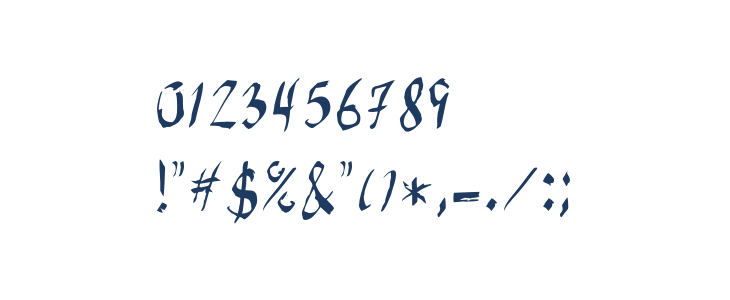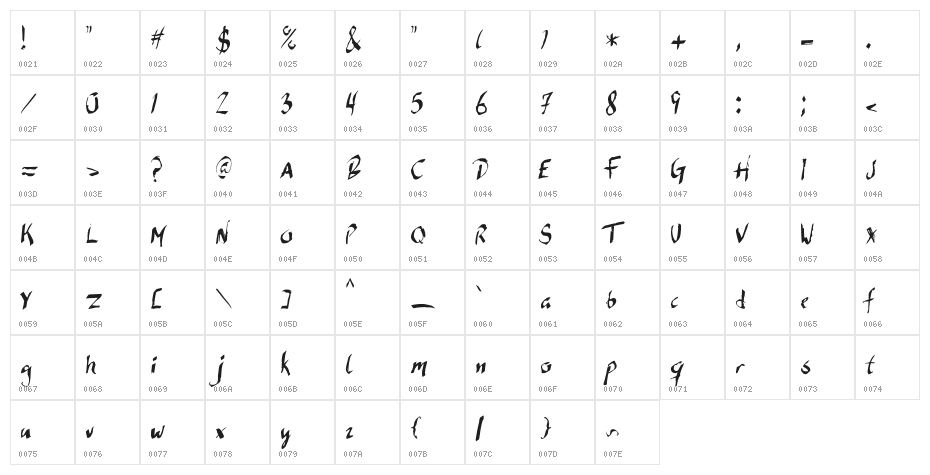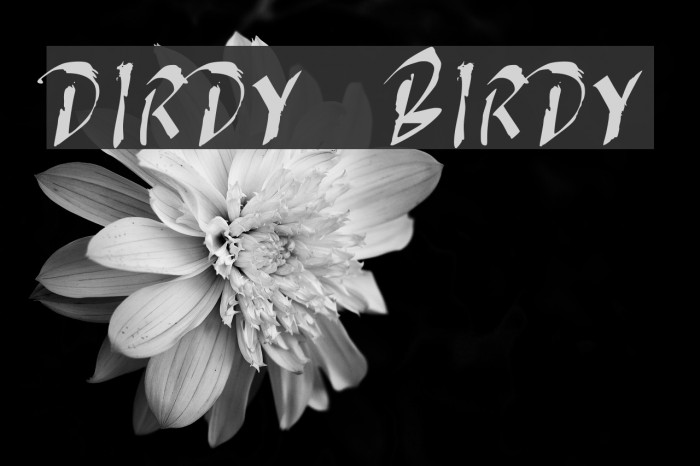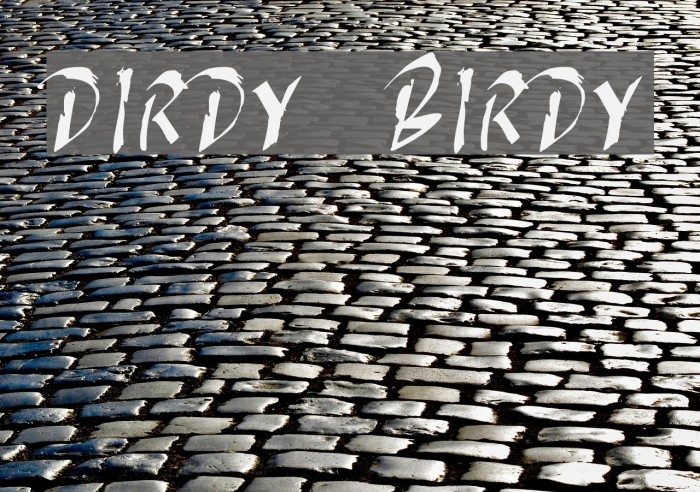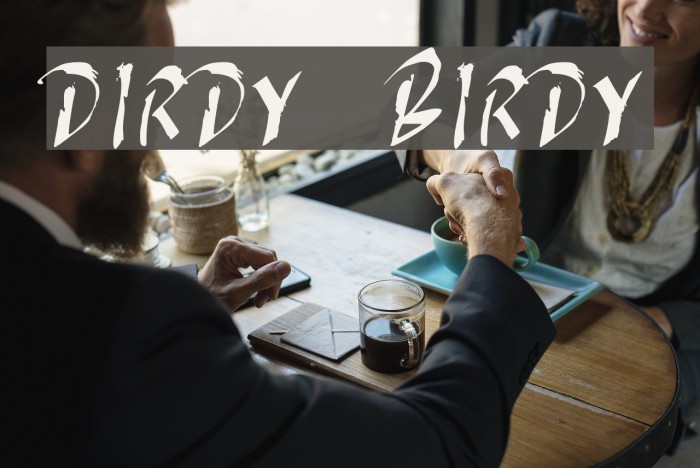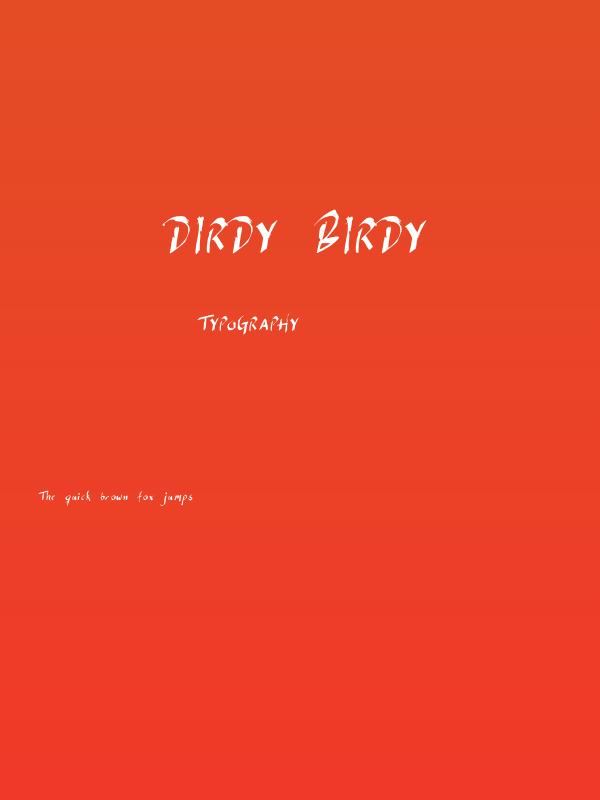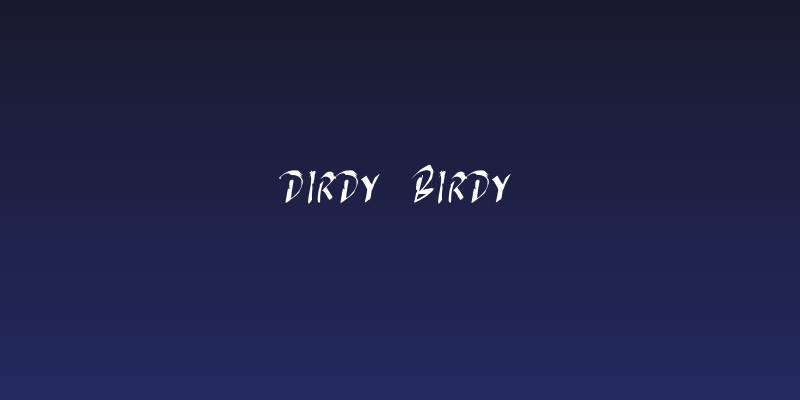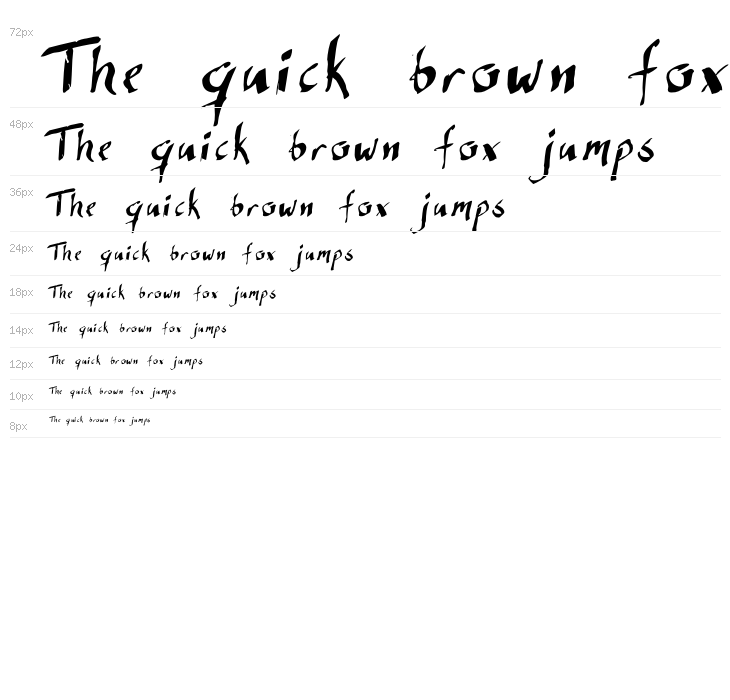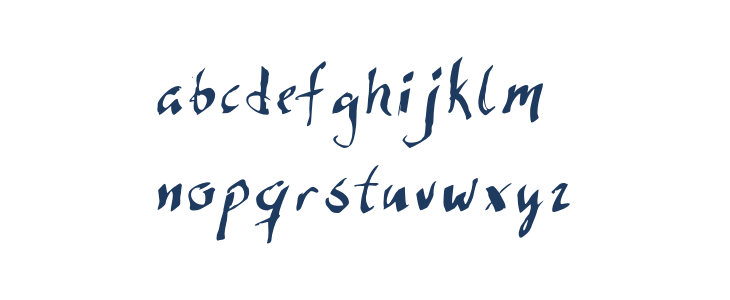
DIRDY BIRDY Font
DIRDY BIRDY Description
This font exudes a dynamic and expressive style, characterized by its brush-like strokes and irregular edges. The letters have a hand-painted appearance, giving them a lively and artistic feel. The uppercase and lowercase letters maintain a consistent flow, with varying thickness that adds to the font's energetic vibe. Numbers and special characters follow the same artistic theme, ensuring a cohesive look across all elements. The overall design is bold and impactful, making it ideal for projects that require a strong visual statement.
| Use Case | Headlines, Logos, Artistic designs |
| Proposed Projects | Ideal for artistic projects, posters, album covers, and branding that requires a bold, creative touch. |